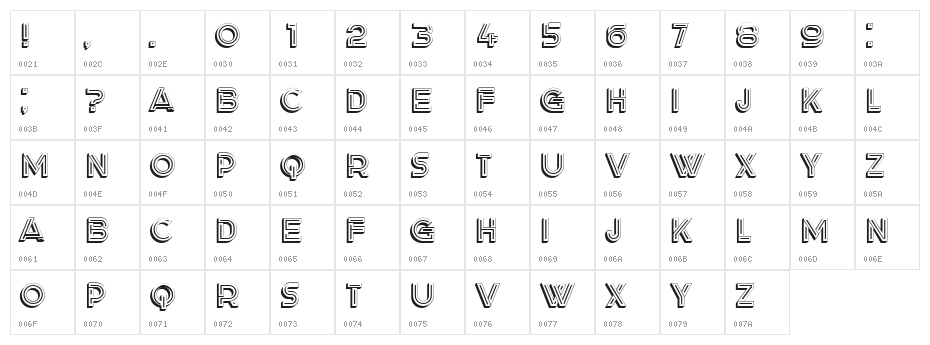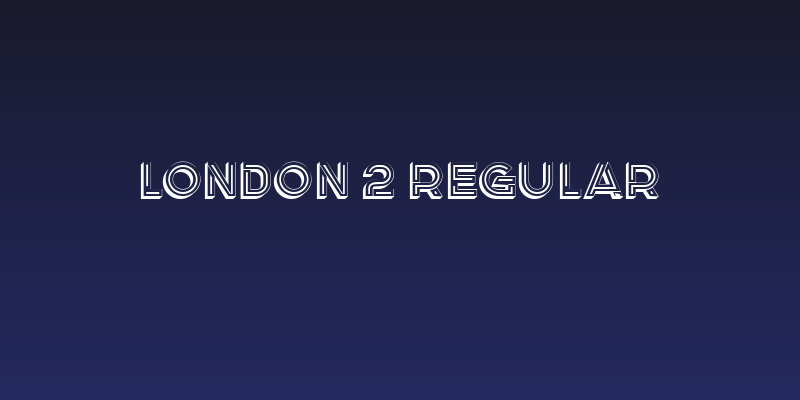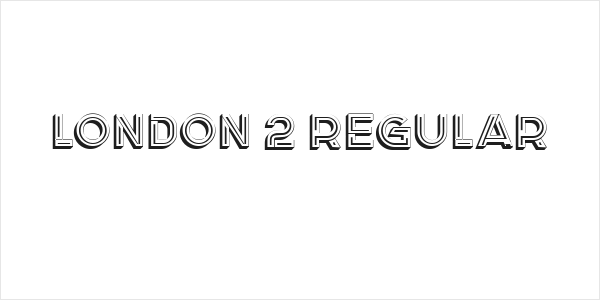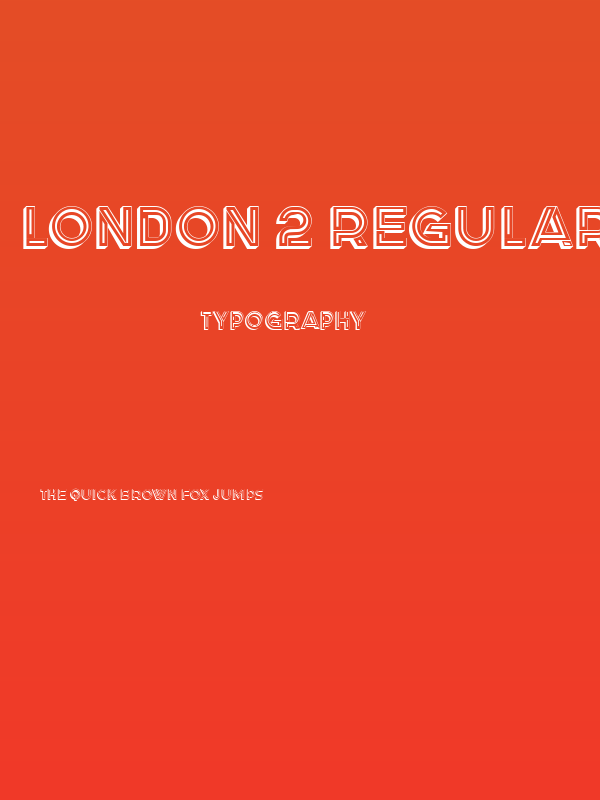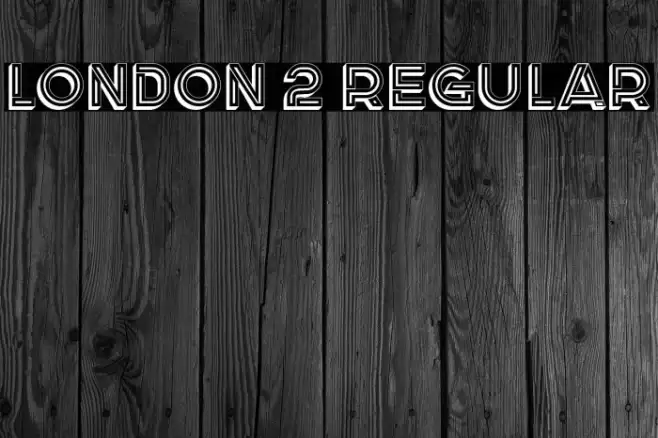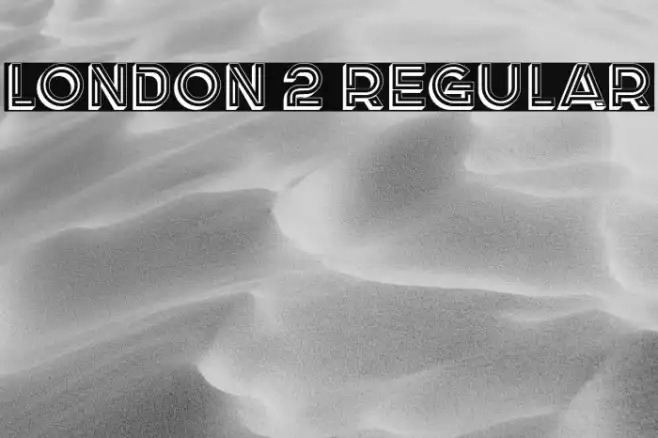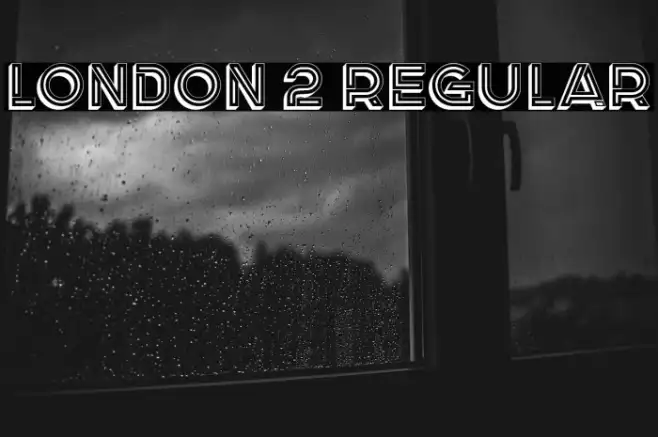
London 2 Regular Font
London 2 Regular Description
This font features a bold, geometric design with a three-dimensional effect, achieved through the use of layered outlines and shadows. The characters are uppercase and exhibit a strong, architectural style, reminiscent of Art Deco influences. The font's structure is clean and precise, with consistent line thickness and sharp angles that create a sense of depth and movement. The numerals and special characters maintain the same stylistic approach, ensuring uniformity across all glyphs. This font is visually striking and commands attention, making it ideal for impactful designs.
| Proposed Projects | Ideal for poster designs, branding, headlines, and any project requiring a bold, eye-catching typeface. |